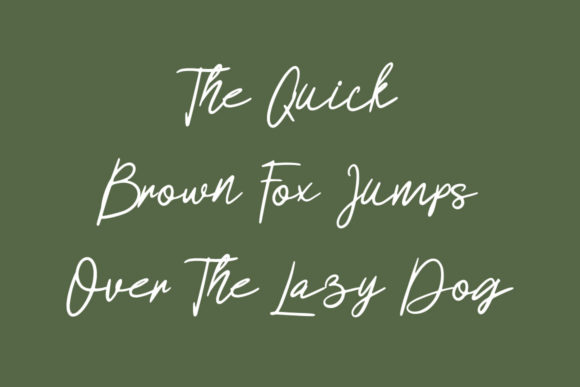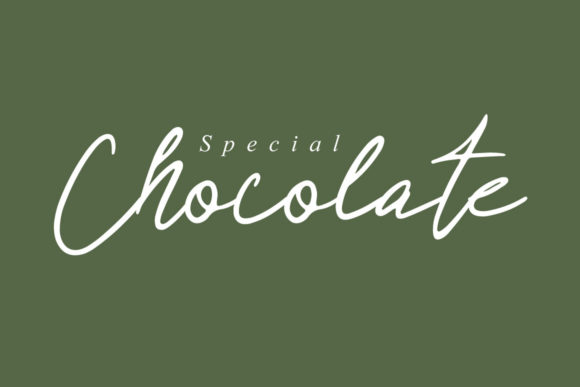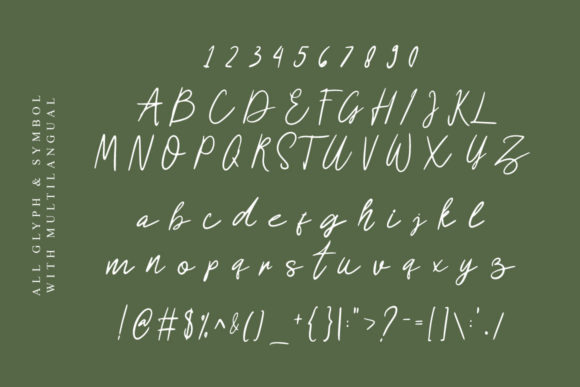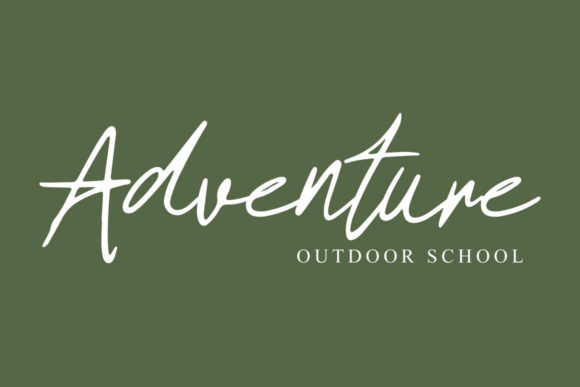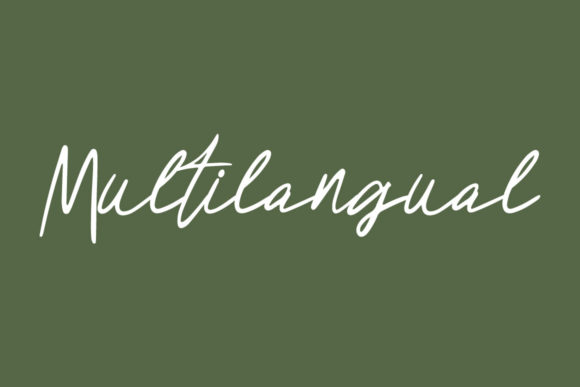
About Signation Font
Signation is a natural signature font. It is suitable for many applications, like logos, greeting cards, posters and more. The only limit is your imagination!